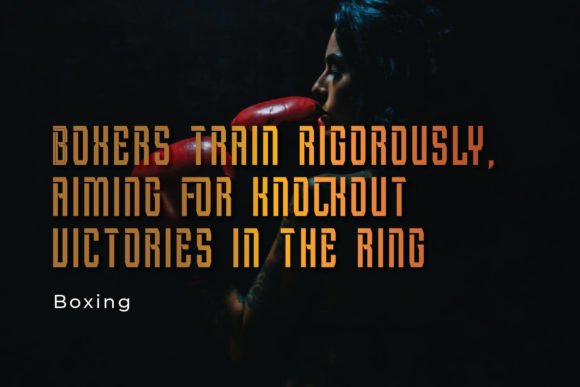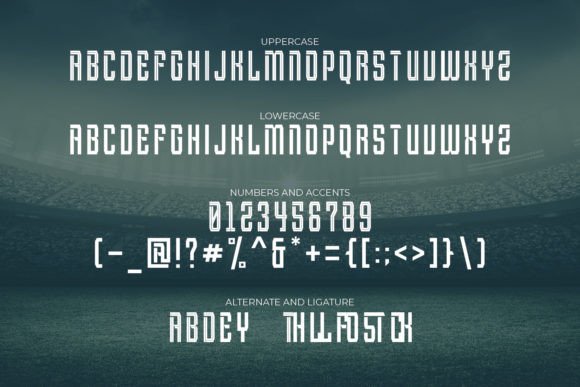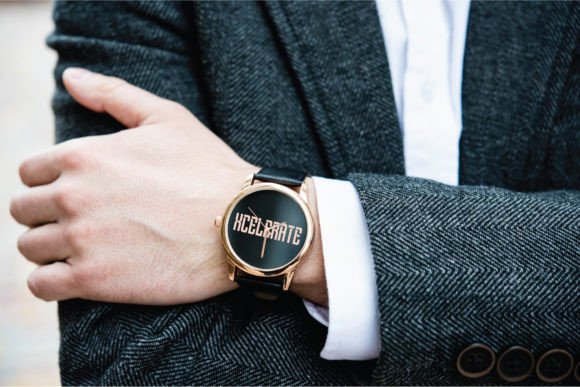
Introduction to Balegare Font
Introducing β€œBalegare,” a sporty font that exudes energy and dynamism.
With bold, athletic letterforms, Balegare is designed to capture the spirit of sports and movement Ideal for team logos, sports events, or any design related to fitness and activity, this font adds a powerful and competitive edge to your typography.